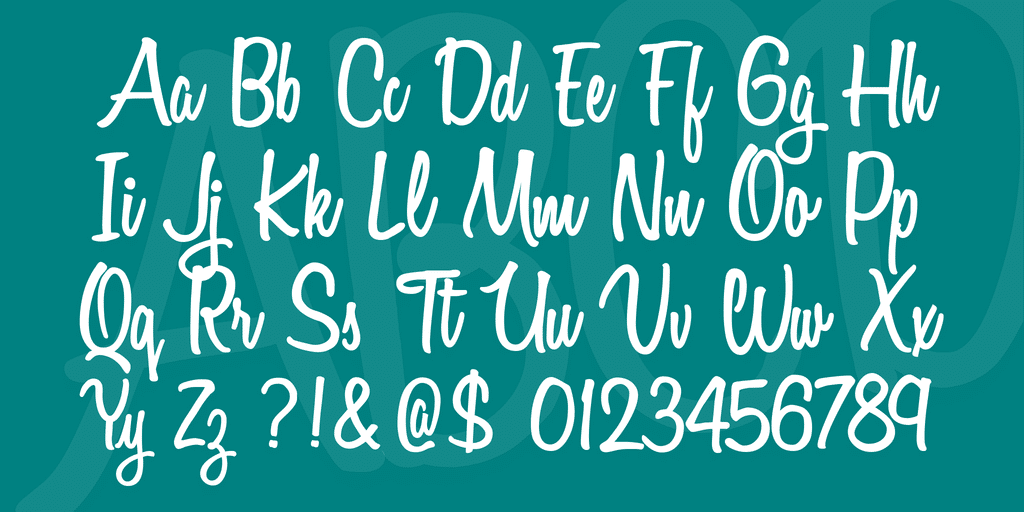
Good brush free font font download 3. The font features a natural flowing design that will surely add a unique touch to your designs.
Simple Best Script Fonts 2020 Idea In 2022, 100 best free handwriting fonts for designers in 2021 in this post, you can find 150+ free best script fonts available on the internet. However, thanks to the fluid, stencil glyphs could fit very well into a number of different styles.
Top 5 of the most popular fonts are lobster, zapfino, pacifico, lucida, and brush script. For the ones looking for a rather signature style cursive script font, cervanttis is the best. It has multilingual support and characters that resemble yearbook inscriptions. Visually script free font font download 2.
Download the font and start using it on your project without any hesitation. The most famous script serif. 100 best free handwriting fonts for designers in 2021 in this post, you can find 150+ free best script fonts available on the internet. Void is a brand new free font that has a creative design.
However, thanks to the fluid, stencil glyphs could fit very well into a number of different styles. Void is a brand new free font that has a creative design. They are organized into highly regular formal types similar to cursive writing and looser, more casual scripts. The most famous script serif. Best Feminine Fonts (Script, Serif & more) — Fallon Gerst in 2020.
This is a list of 25 newest free fonts for 2020 that you should be making use of: Download the font and start using it on your project without any hesitation. Next up in our selection of the best cursive fonts is the rampage monoline typeface, a stunning script typeface that’s ideal as a title or headline on a poster or flyer, or as part of a branding campaign. Atziluth script stunning script fonts creative market. Summertime Script + Swash in 2020 Handwritten fonts, Best script.
Top 5 of the most popular fonts are lobster, zapfino, pacifico, lucida, and brush script. It has multilingual support and characters that resemble yearbook inscriptions. We have hand picked these fonts for various purposes, each featuring a unique style and you can download script font for print, visual media, graphics designers, web designers, photographer, blogger and tried to gather. Go ahead, scroll down and start downloading. 15 Best Cursive Fonts for Designers Free in 2020 by Akbar Shah NYC.
The font includes uppercase and lowercase letters. The font is available in multiple weights ranging from thin to bold. It’s available as a free download from behance. Malika is a brush script font that also features a letter design inspired by handwriting styles. 30+ Best Script & Cursive Fonts 2021 Theme Junkie Romantic script.
100 greatest free fonts for 2020 1. It's no wonder this font has proven to be popular. Visually script free font font download 2. Go ahead, scroll down and start downloading. Brightside A Bouncy Handwritten Script Font in 2020 Handwritten.
Stanley font duo 40 intro offer stunning script fonts 30 food fonts that are good enough to eat creative market blog 30 rounded fonts. Malika is a brush script font that also features a letter design inspired by handwriting styles. American lemon font duo free font font download 4. Marlena free font font download 5. Madegola Script (Font) by NissaStudio · Creative Fabrica in 2020.
This is a list of 25 newest free fonts for 2020 that you should be making use of: American lemon font duo free font font download 4. This beautiful typeface stands out with its clean design. Download best script fonts 2020 handpicked these script fonts from all around the web, so be sure to check the license and attribution details before using them with your client and commercial projects available in otf, ttf, woff and other format. Best Of 2020 Font Bundle Stunning Script Fonts Creative Market.
Stanley font duo 40 intro offer stunning script fonts 30 food fonts that are good enough to eat creative market blog 30 rounded fonts. This beautiful typeface stands out with its clean design. Perfect for branding projects, social media graphics, logos, and much more, the honest designers script will help you take your work to new heights. Mallicot modern script font (otf, woff) mallicot is a modern script font that will look fantastic on your projects. Best Classic Cursive Script Font 30 Beautiful Modern Script Fonts.
100 best free handwriting fonts for designers in 2021 in this post, you can find 150+ free best script fonts available on the internet. Snowpe script free font font download 7. Void is a brand new free font that has a creative design. Mallicot modern script font (otf, woff) mallicot is a modern script font that will look fantastic on your projects. Modern Hand Written Fonts 2018 Brittania Modern Handwritten UXFree.
American lemon font duo free font font download 4. Just looking for a stylish free font? However, thanks to the fluid, stencil glyphs could fit very well into a number of different styles. It can be used for any and all creative projects.